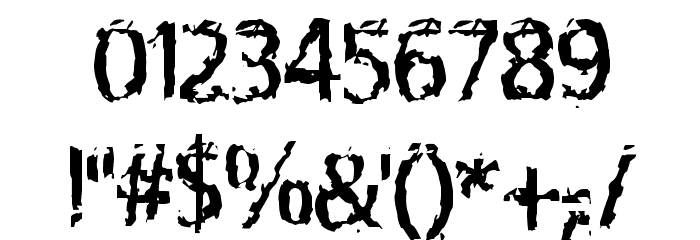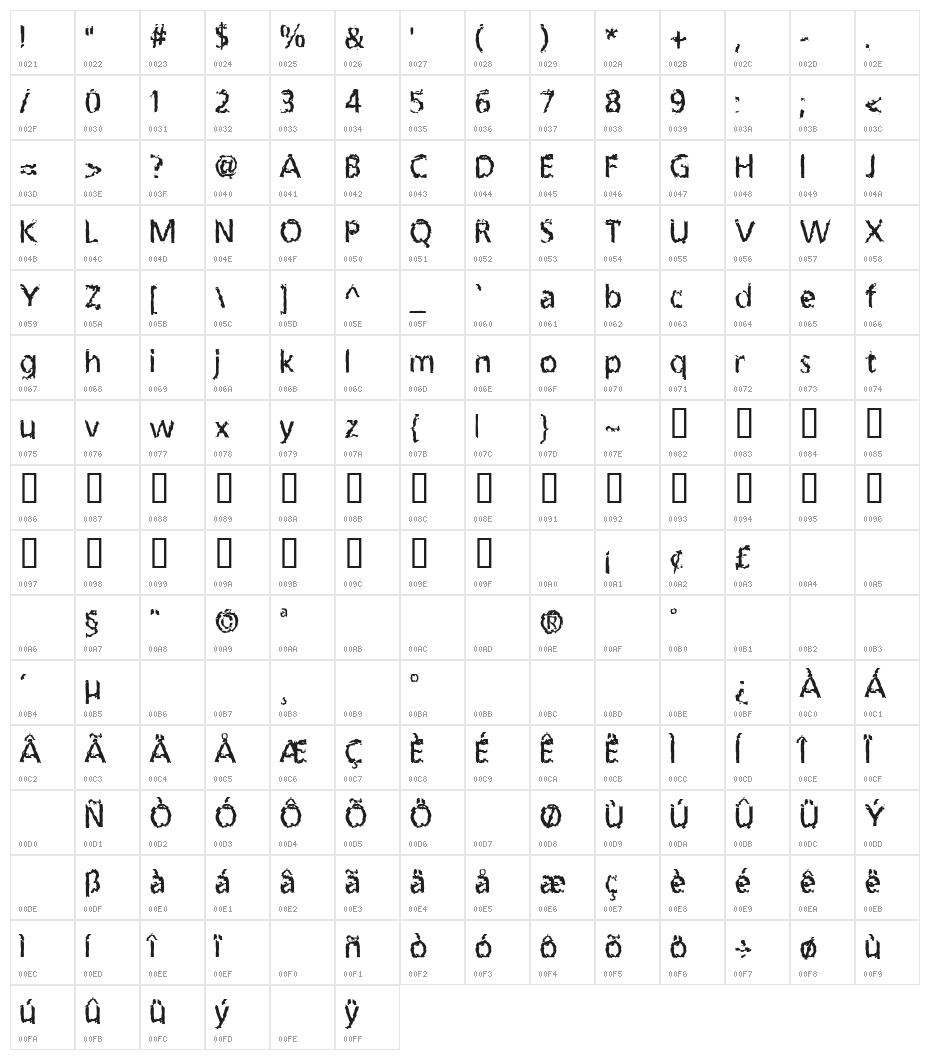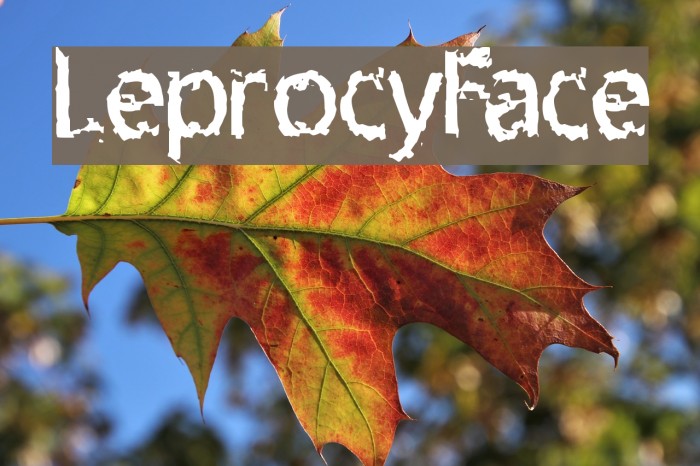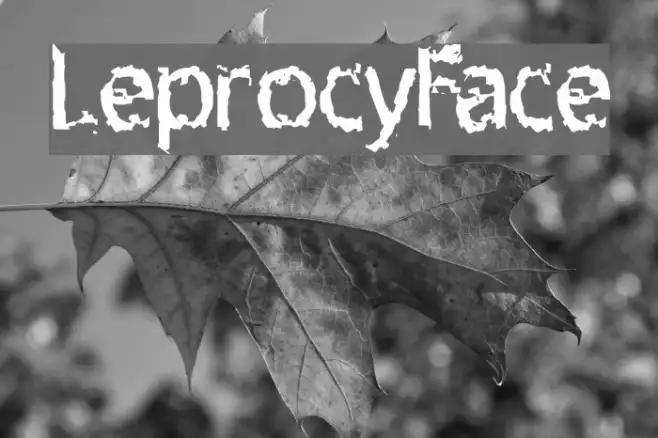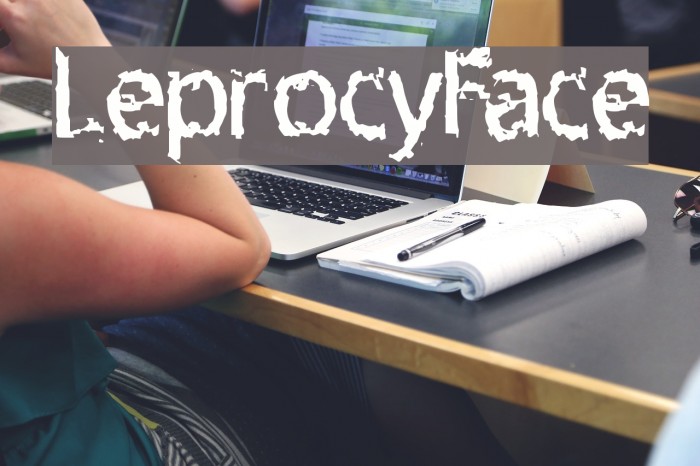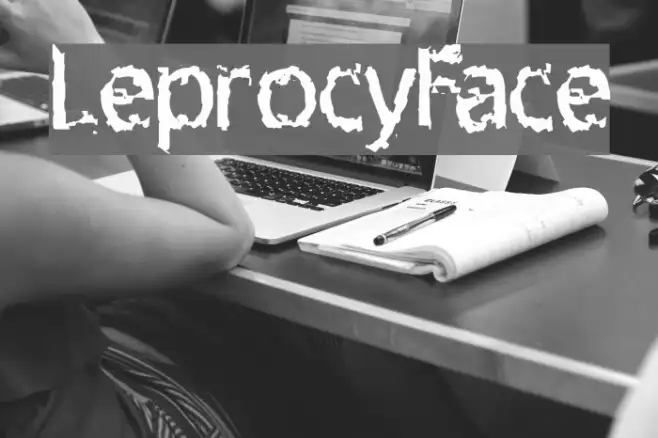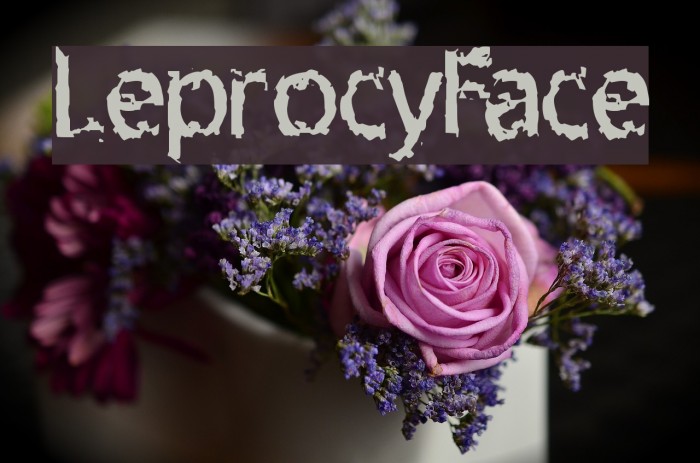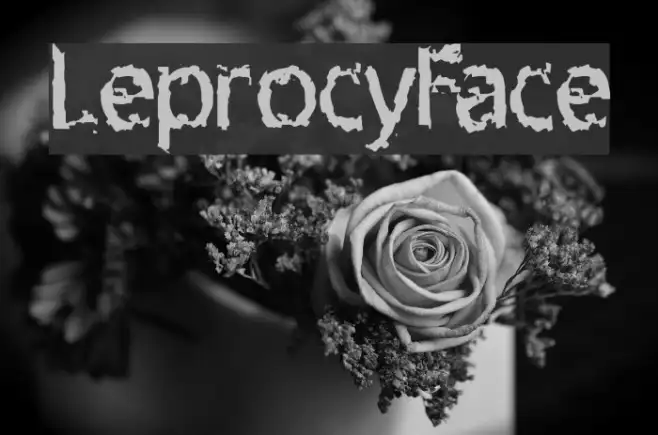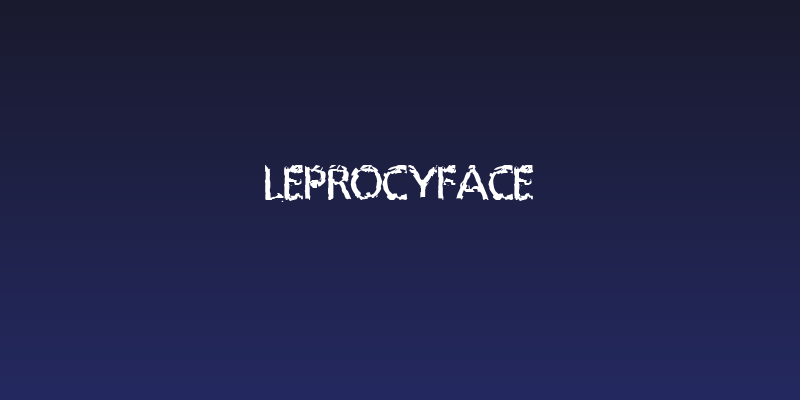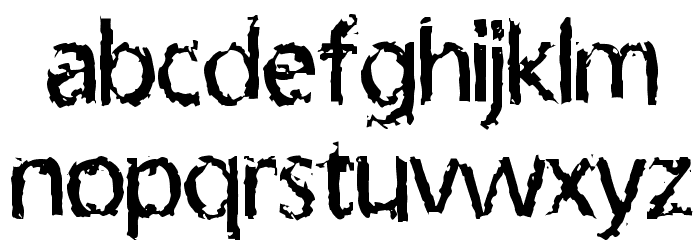
LeprocyFace Font
LeprocyFace Description
This font features a distressed, grungy appearance with irregular edges and a rough texture, giving it a worn and weathered look. The characters appear as if they have been eroded or decayed, creating a unique and edgy aesthetic. The uppercase and lowercase letters maintain a consistent style, with numbers and special characters following the same design principles. This font is ideal for projects that require a bold statement or an unconventional, artistic touch.
| Overall Style | Grunge, Edgy, Artistic |
| Use Case | Headlines, Posters, Artistic projects |
| Proposed Projects | Ideal for album covers, horror movie posters, edgy branding, and street art designs. |